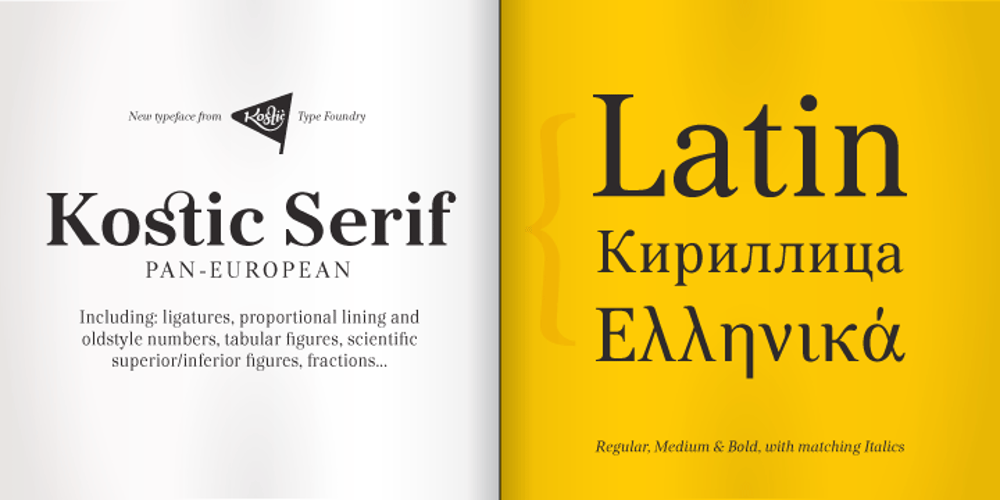
Kostic Serif Font Family was designed by Zoran Kostic, Nikola Kostić and published by Kostic. Kostic Serif contains 6 styles and family package options. Kostic Serif is a classic transitional typeface (like Baskerville, Bookman, Caslon, Times) with tall, clean characters and a large glyph set to support all European languages – Greek and Cyrillic script included. Excellent for setting multiple pages of text and packed with OpenType features (proportional lining and oldstyle numbers, tabular figures, superscript and subscript, numerator and denominator figures, fractions and 31 ligature in 659 characters), it should meet the demands of even the most demanding typographic works. Kostic Serif is made with fairly large x-height, so the text is legible in very small sizes. Zoran began the work on Kostic Serif around 2002 and after completing Regular, Bold and matching italics, he wasn’t too pleased with the design, so he dropped further work on it to make other fonts. In 2010 Nikola came upon unfinished files for Kostic Serif, and decided to redesign the letters, while retaining basic proportions and widths that Zoran established earlier. When they were both pleased with the new look of the font, they made Medium and decided to add CE and Greek script to the glyph set, to make it pan-european.